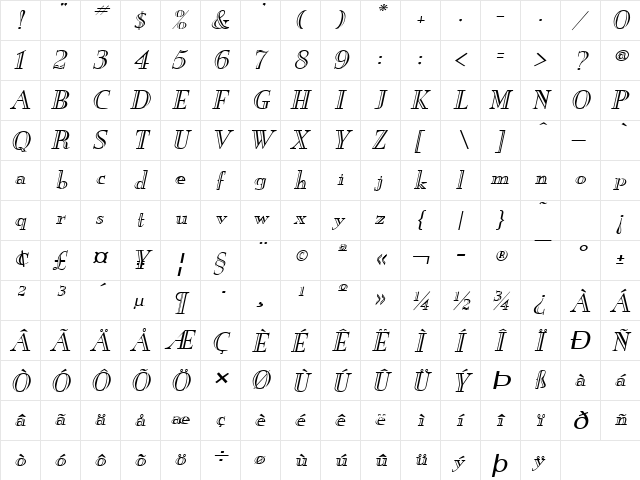
New England-Engraved-Extended Italic
New England-Engraved-Extended is built around its visual character rather than neutral utility — its distinctive forms are designed to make an impression at display sizes. Its italic angle brings a sense of urgency and motion to the letterforms.
Font Pairing: Pair with a clean neutral sans-serif for body copy to let New England-Engraved-Extended's character lead without overwhelming the composition.
Pro Tip: Use New England-Engraved-Extended exclusively at display sizes — it was designed to be seen, not read at length. Let a neutral companion handle body copy.